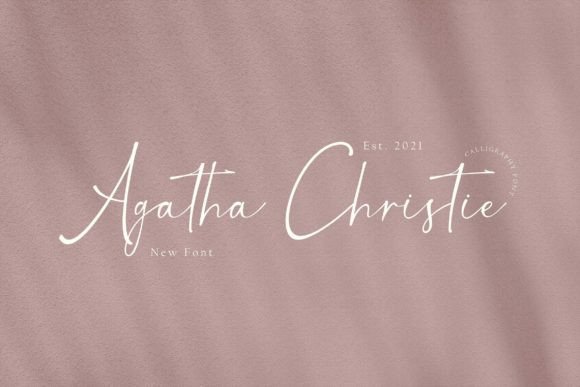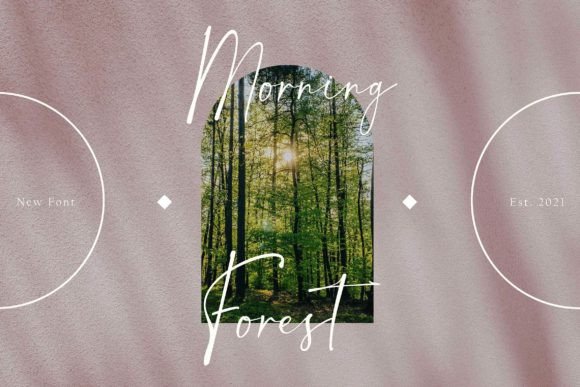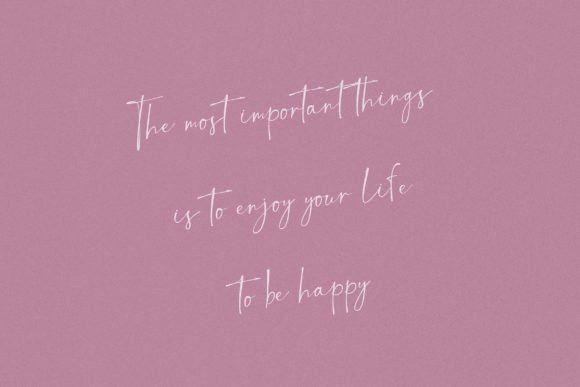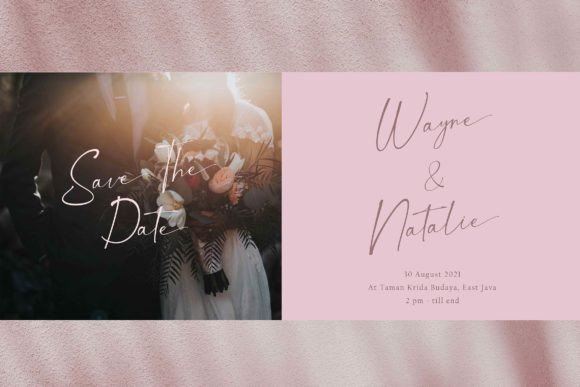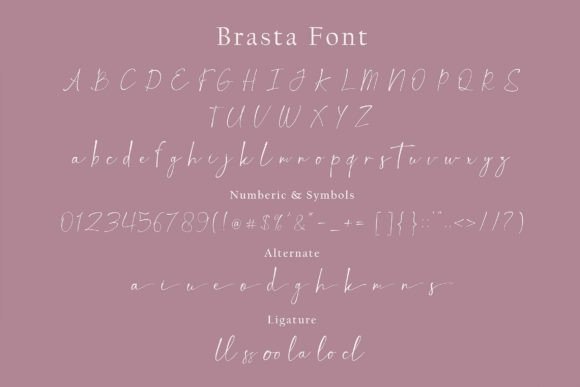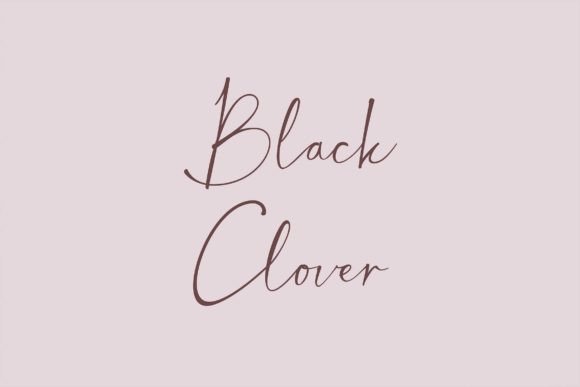
Discover the Elegance of Brasta Font: Elevate Your Designs with Precision and Style
In the realm of typography, a font can make or break the visual appeal of a design. For those seeking a script font that exudes elegance, precision, and versatility, look no further than Brasta Font. This dazzling script font is meticulously crafted with high attention to detail, making it a valuable addition to any designer’s or crafter’s font library.
The Making of Brasta Font: A Masterpiece of Typography
Brasta Font is not just any ordinary script font. It is a result of careful planning, designing, and refining to ensure that every letter, every curve, and every stroke meets the highest standards of typographic excellence. The creators of Brasta Font have poured their expertise and passion into making a font that is not only beautiful but also highly functional.
Key Features of Brasta Font
- Neatly Crafted and Highly Detailed: Brasta Font stands out for its neat crafting and high level of detail. Each character is designed to ensure clarity and readability, making it perfect for a wide range of applications, from digital media to print.
- Versatility: Whether you’re working on a branding project, a website design, a craft project, or any other creative endeavor, Brasta Font can adapt. Its elegant and flowing script can add a touch of sophistication to any design.
- Elegance and Sophistication: The script style of Brasta Font brings an air of elegance and sophistication to any project. Its flowing lines and beautiful ligatures make it perfect for designs that require a bit of luxury and refinement.
Applications of Brasta Font
The versatility of Brasta Font makes it suitable for a myriad of applications. Here are a few ideas to get you started:
- Branding and Logos: Use Brasta Font to create a memorable and elegant brand identity. Its unique style can help your brand stand out from the competition.
- Website Design: Enhance the user experience of your website with Brasta Font. Its readability and aesthetic appeal make it perfect for headings, titles, and even body text.
- Stationery and Invitations: Add a touch of elegance to your stationery, invitations, and greeting cards with Brasta Font.
- Crafting and DIY Projects: Whether you’re creating handmade cards, fabric designs, or any other craft project, Brasta Font can add a professional and stylish touch.
Why Choose Brasta Font?
With so many fonts available, why should you choose Brasta Font for your projects? Here are a few compelling reasons:
- Unique Style: Brasta Font offers a unique script style that can help your designs stand out.
- High Quality: The font is designed with high quality in mind, ensuring it looks great in any size or application.
- Ease of Use: Brasta Font is easy to integrate into your projects, whether you’re working with graphic design software or embedding it into your website.
Brasta Font is more than just a script font; it’s a tool that can elevate your designs to new heights. Its elegant style, precision crafting, and versatility make it an invaluable asset for designers and crafters alike. Whether you’re looking to add a touch of sophistication to your branding, website, or craft project, Brasta Font is an excellent choice. Discover the elegance and potential of Brasta Font today and take your designs to the next level.